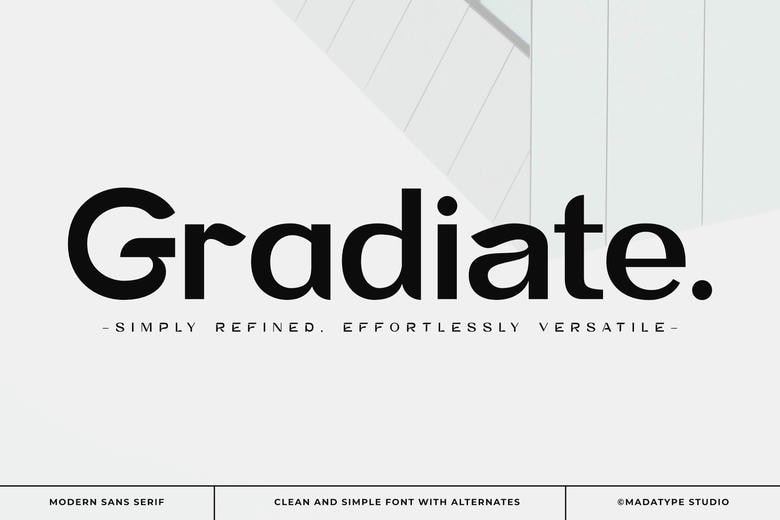
Gradiate Font
Gradiate is a modern sans-serif font with clean lines and smooth shapes. It comes with a set of stylistic alternates, so you can easily turn standard layouts into custom lettering. Gradiate works well for logos, modern branding, editorial projects, and everyday design tasks.
Gradiate Sans Serif Font